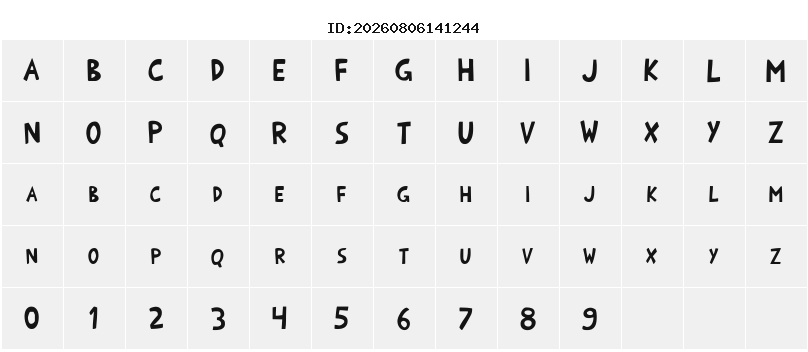
OnomatoShark! Preview
• Font Name: OnomatoShark!
• Font Style: OnomatoShark!
• Full Font Name: OnomatoShark!
• PostScript Name: OnomatoShark!
• Character Count: 193
About OnomatoShark!.ttf
OnomatoShark!.ttf is a modern, elegant sans-serif font designed for ultimate readability and visual harmony. Perfect for branding, headlines, web design, and print materials.